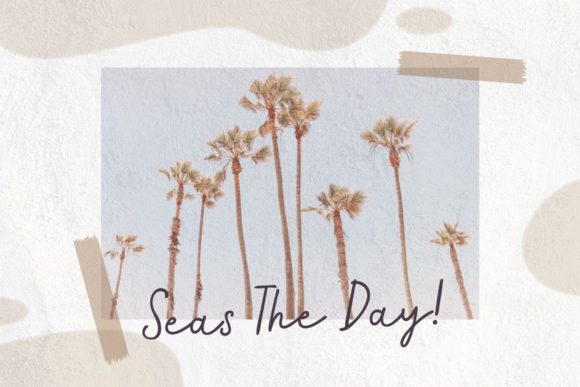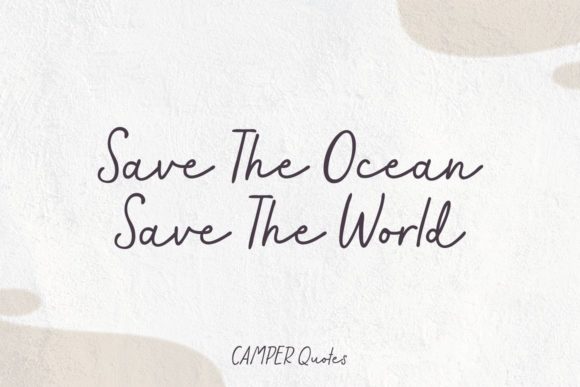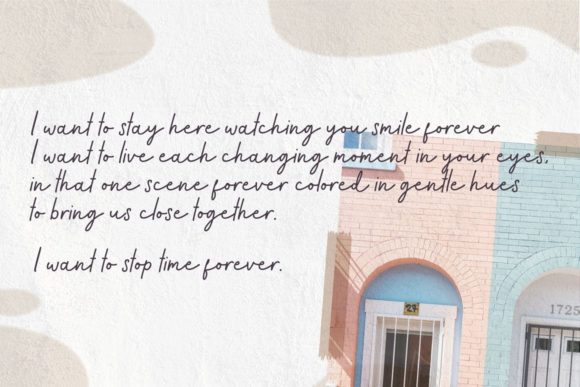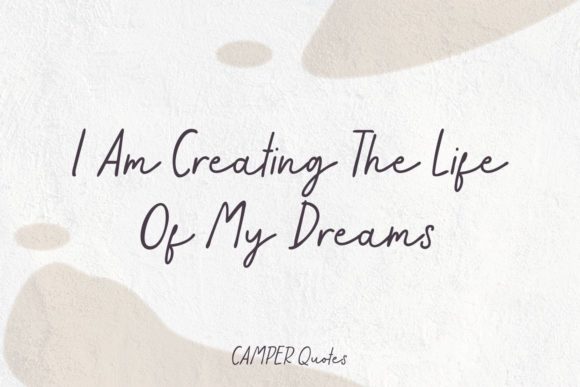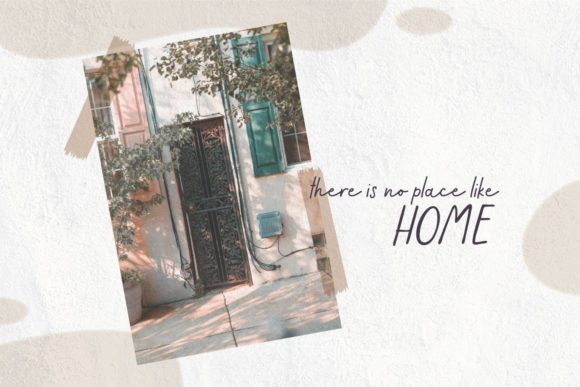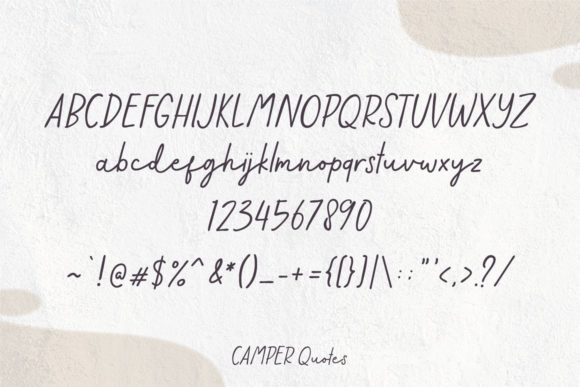
Discover the Charm of Camper Quotes Font: Elevate Your Designs with a Personal Touch
Are you a designer, crafter, or educator looking for a font that adds a personal and realistic feel to your work? Look no further than Camper Quotes Font! This adorable, handwritten font is perfect for creating chalkboard quotes, teaching materials, and other designs that require a touch of authenticity. In this article, we’ll dive into the world of Camper Quotes Font, exploring its features, benefits, and uses, as well as provide tips on how to make the most of this versatile font.
What is Camper Quotes Font?
Camper Quotes Font is a cute and simple lettered handwritten font designed to mimic the look of chalkboard writing. Its authentic, casual feel makes it an ideal choice for creating designs that require a personal touch. Whether you’re a teacher looking to create engaging lesson plans, a designer seeking to add a unique element to your projects, or a crafter wanting to create personalized gifts, Camper Quotes Font is the perfect tool for the job.
Key Features of Camper Quotes Font
• Cute and Simple Design: Camper Quotes Font boasts a charming, handwritten design that’s both easy to read and visually appealing.
• Authentic Look: The font’s authentic, chalkboard-inspired look adds a personal and realistic feel to your designs.
• Versatile: Camper Quotes Font can be used for a wide range of projects, from chalkboard quotes and teaching materials to crafts and DIY projects.
• Easy to Use: This font is incredibly easy to use, making it perfect for designers and non-designers alike.
Benefits of Using Camper Quotes Font
So, why choose Camper Quotes Font for your designs? Here are just a few benefits of using this amazing font:
• Adds a Personal Touch: Camper Quotes Font adds a personal and realistic feel to your designs, making them stand out from the crowd.
• Increases Engagement: The font’s authentic, chalkboard-inspired look is sure to capture the attention of your audience and keep them engaged.
• Versatile: Camper Quotes Font can be used for a wide range of projects, making it a valuable addition to your design toolkit.
• Easy to Read: The font’s clear, simple design makes it easy to read, even for younger audiences.
Using Camper Quotes Font: Tips and Tricks
Now that you know a little bit about Camper Quotes Font, let’s dive into some tips and tricks for using this amazing font:
• Pair with Other Fonts: Experiment with pairing Camper Quotes Font with other fonts to create visually appealing combinations.
• Use for Headlines and Titles: The font’s bold, playful design makes it perfect for headlines and titles.
• Add a Personal Touch: Use Camper Quotes Font to add a personal touch to your designs, such as in quotes, phrases, or lyrics.
• Experiment with Colors: Don’t be afraid to experiment with different colors to find the perfect combination for your design.
Who Can Benefit from Camper Quotes Font?
Camper Quotes Font is perfect for a wide range of individuals, including:
• Teachers and Educators: Create engaging lesson plans, chalkboard quotes, and teaching materials with ease.
• Designers: Add a unique element to your designs, such as brochures, flyers, and posters.
• Crafters: Create personalized gifts, such as signs, banners, and cards.
• DIY Enthusiasts: Add a personal touch to your DIY projects, such as home decor and crafts.
Font Name Camper Quotes Font
Author Drizy Studio
In conclusion, Camper Quotes Font is a versatile and charming font that’s perfect for adding a personal touch to your designs. With its authentic, chalkboard-inspired look and easy-to-use design, this font is sure to become a staple in your design toolkit. Whether you’re a teacher, designer, crafter, or DIY enthusiast, Camper Quotes Font is the perfect choice for creating engaging and visually appealing designs. So why wait? Download Camper Quotes Font today and start elevating your designs with a personal touch!